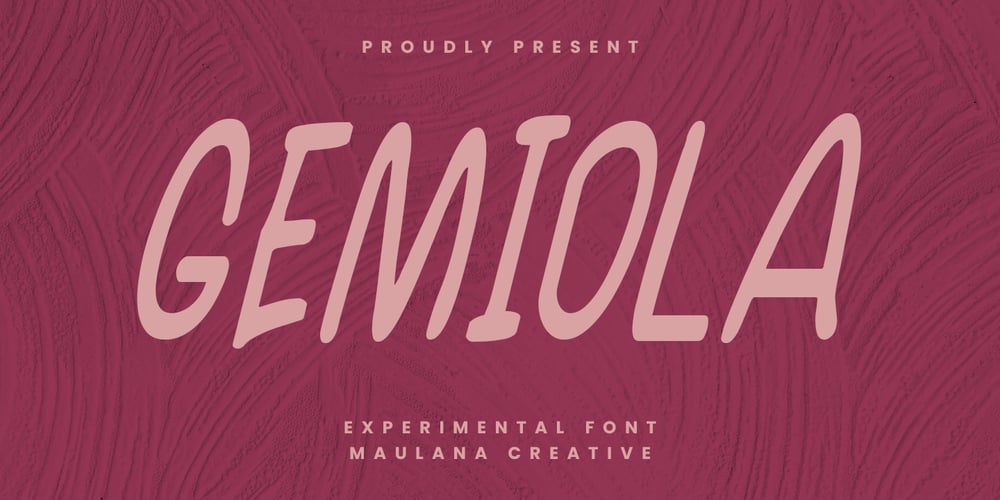
MC Gemiola
MC Gemiola font
MC Gemiola Font Family was designed by Gilang Maulana and published by Maulana Creative. MC Gemiola contains 1 styles and family package options. Gemiola is a display font. Heavy brush, fun character with a bit of ligatures and alternates. To give you an extra creative work. Gemiola font support multilingual language. This font is good for logo design, Social media, Movie Titles, Books Titles, a short text even a long text letter and good for your secondary text font with script or serif. Make a stunning work with Gemiola font.–UppercaseCheers,Maulana Creative